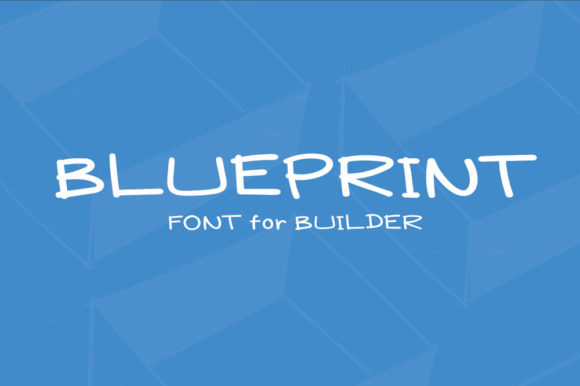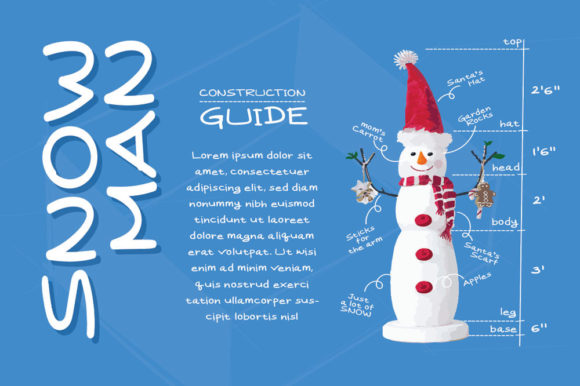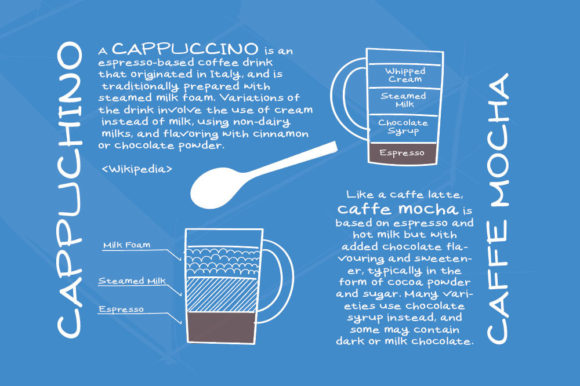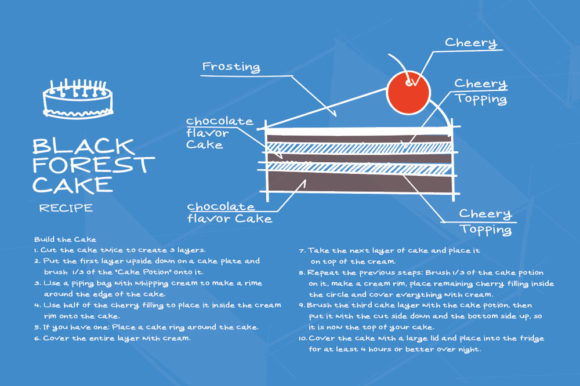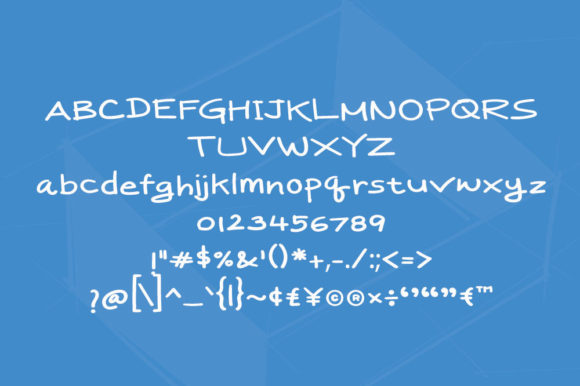
Blueprint Font
About Blueprint Font
Blueprint is an informal, friendly and neat handwritten font. Whether you’re using it for crafting, digital designing, presentations or greeting cards making, it’s perfect!